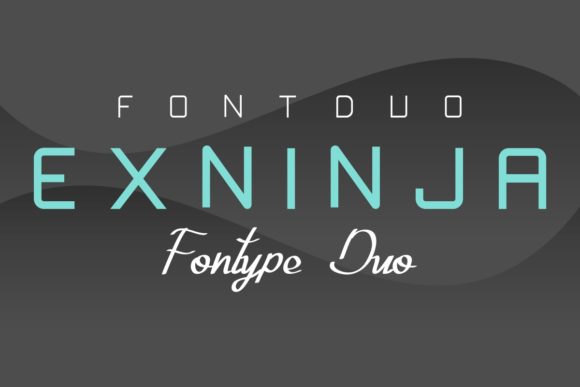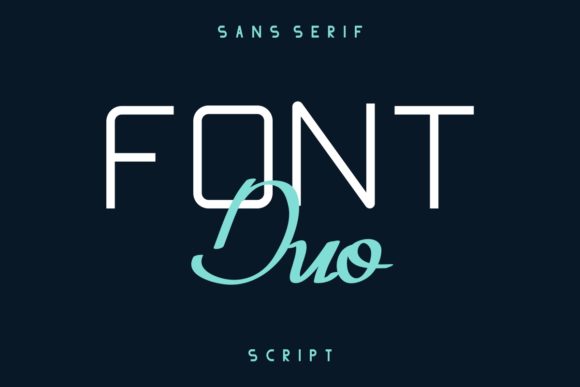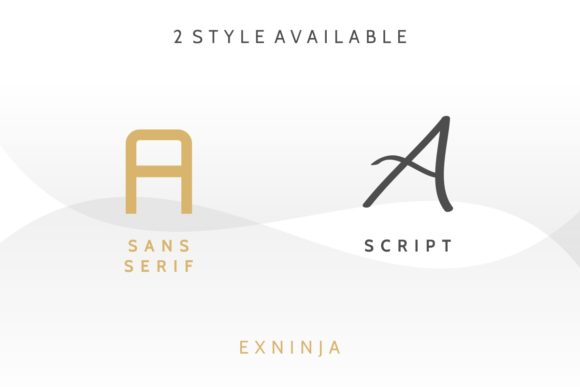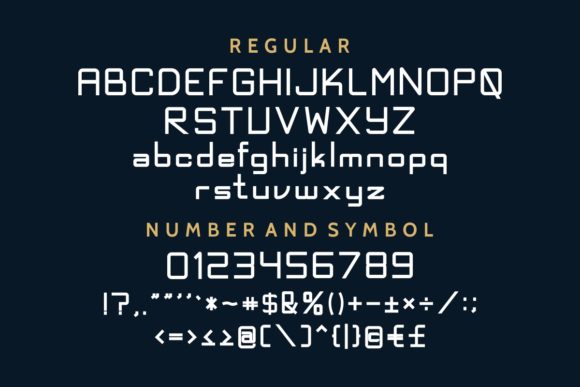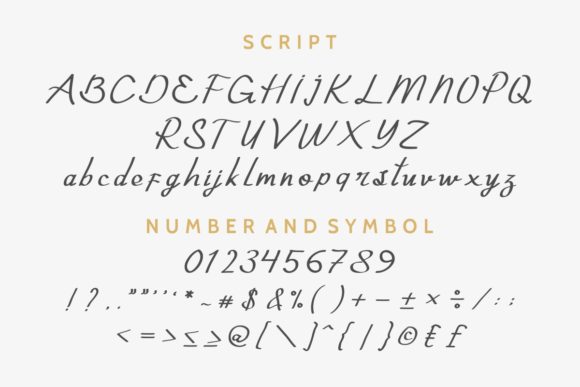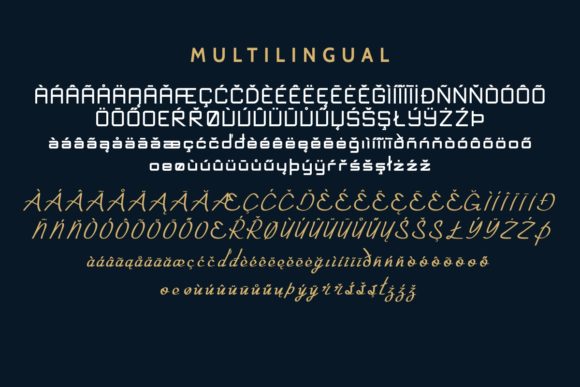
Introduction to Exninja Font
Exninja brings together a unique sans serif and script font with a bold feel.
It will turn any design project into an eye-catcher .
Key Features of Exninja Font
Why Choose Exninja Font?